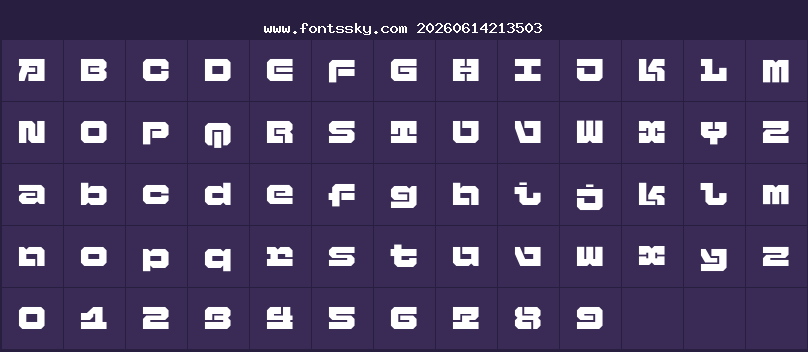
• Font Name: Brinky Mono Basic
• Full Font Name: Brinky Mono Basic
• Designer: Maksym Kobuzan
About Brinky Mono Basic.otf
Brinky Mono Basic.otf is a modern, elegant sans-serif font designed for ultimate readability and visual harmony. Perfect for branding, headlines, web design, and print materials.